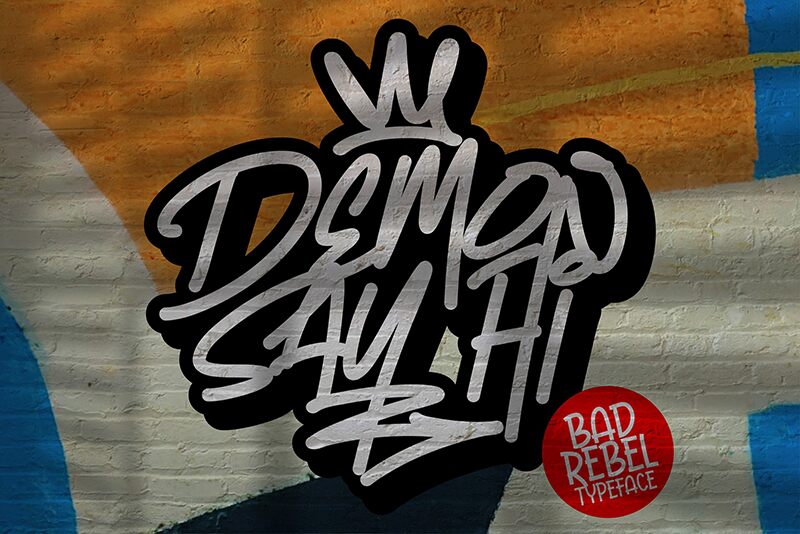
Say hello to Demon Say Hi, the graffiti-inspired semi-light font designed by Gassstype. With its condensed width, this font is perfect for projects that require a bold statement in tight spaces. Use it for edgy logos, street-style posters, and rebellious album covers. Demon Say Hi will add a touch of urban grit to any design project. Whether you're creating something for a hip hop artist or a skateboarding brand, this font will elevate your work to the next level. Get ready to make your message shout with Demon Say Hi!